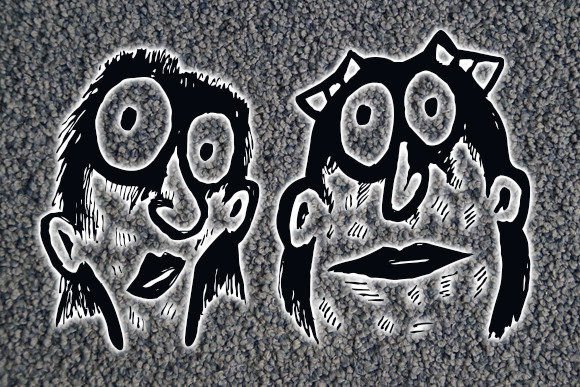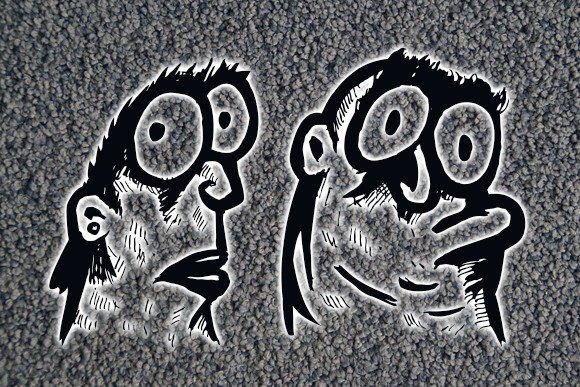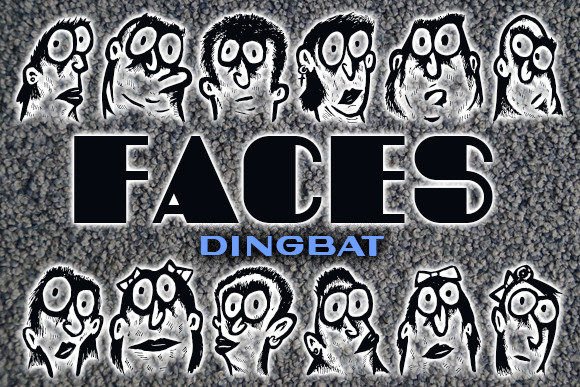
Introducing Faces Font: The Ultimate Dingbat for Creative Designs
Are you tired of using the same old fonts for your designs? Look no further! Faces Font is here to revolutionize your creative projects with its unique and playful dingbat style. This amazing font is perfect for designers and crafters who want to add a touch of personality to their work. In this article, we’ll dive into the world of Faces Font and explore its features, uses, and benefits.
What is Faces Font?
Faces Font is a dingbat font that features a collection of fun and quirky face designs. Each character in the font is carefully crafted to represent a different facial expression, from happy and smiling to sad and surprised. The font is designed to be versatile and can be used in a variety of creative projects, including posters, flyers, banners, and more.
Key Features of Faces Font
- Unique and Playful Design: Faces Font boasts a one-of-a-kind design that is sure to grab attention. Each character is carefully crafted to showcase a different facial expression, making it perfect for designs that require a touch of personality.
- High-Quality Vector Graphics: Faces Font is created using high-quality vector graphics, ensuring that it remains crisp and clear even at large sizes.
Uses of Faces Font
Faces Font is an incredibly versatile font that can be used in a variety of creative projects. Here are some ideas to get you started:
- Posters and Flyers: Add a touch of personality to your posters and flyers with Faces Font. Use it to create eye-catching headlines, titles, and graphics.
- Banners and Signs: Faces Font is perfect for creating banners and signs that require a playful and attention-grabbing font.
- Social Media Graphics: Use Faces Font to create engaging social media graphics that will help you stand out from the crowd.
- Party Decorations: Faces Font is a great addition to any party decorations, including invitations, banners, and garlands.
Benefits of Using Faces Font
So, why should you use Faces Font in your designs? Here are some benefits to consider:
- Adds Personality to Your Designs: Faces Font is a great way to add a touch of personality to your designs. Its unique and playful design ensures that your work will stand out from the crowd.
- Increases Engagement: The fun and quirky design of Faces Font is sure to grab attention and increase engagement. Use it to create designs that will resonate with your audience.
- Versatile and Flexible: Faces Font is incredibly versatile and can be used in a variety of creative projects. Its flexibility makes it a great addition to any designer’s toolkit.
In conclusion, Faces Font is an awesome dingbat that will look amazing on any of your designs. Its unique and playful design, high-quality vector graphics, and ease of use make it a must-have for designers and crafters. Whether you’re creating posters, flyers, banners, or social media graphics, Faces Font is the perfect choice. So, why wait? Download Faces Font today and start creating stunning designs that will leave a lasting impression!